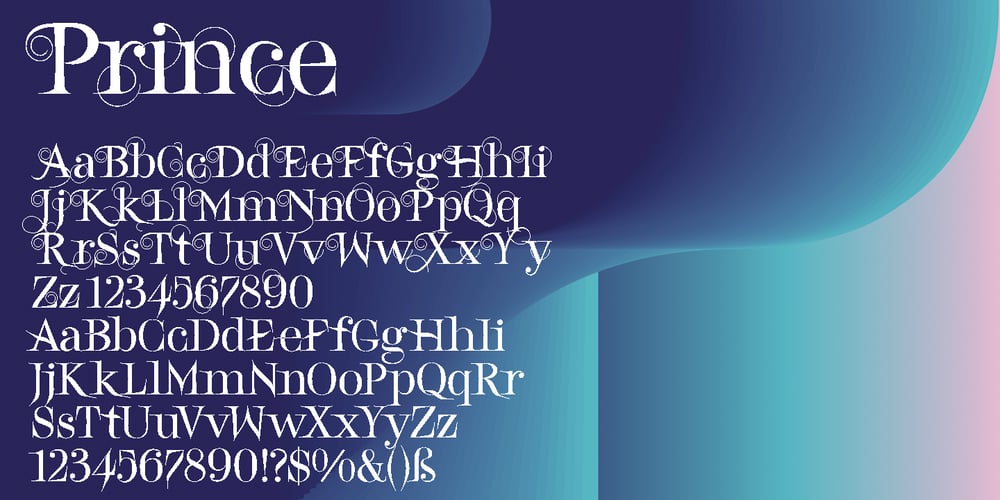
Prince Font Family was designed by Gert Wiescher and published by Wiescher Design. Prince contains 4 styles and family package options. Prince is an embellished Typeface with very fine loops and very pointed serifs based on Bodonian forms. You get two fonts for the price of one – one embellished font and the second one with less embellishments to mix. This is another unusual typeface with a royal touch by your designer of elegant fonts, Gert Wiescher